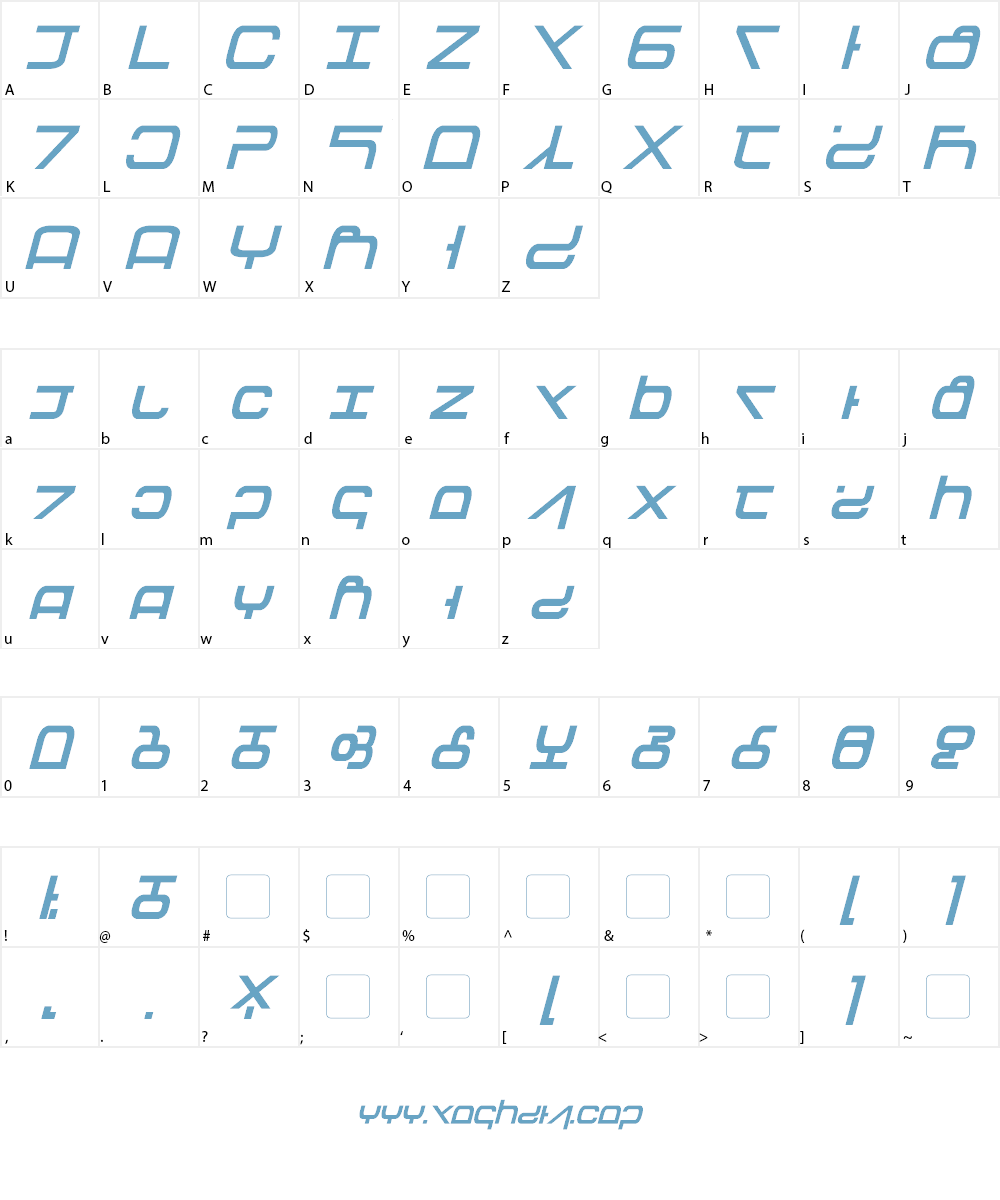
This alien-glyph font is based on the writing found in display readouts of the Robotech Masters as seen in Harmony Gold's "Robotech II: The Sentinels". Includes all canon glyphs.